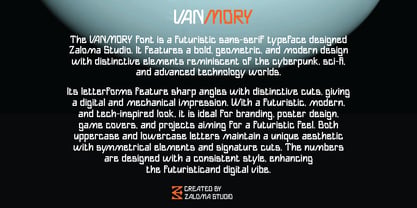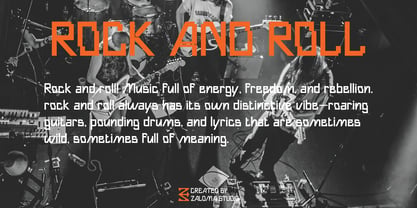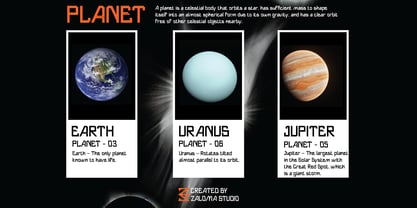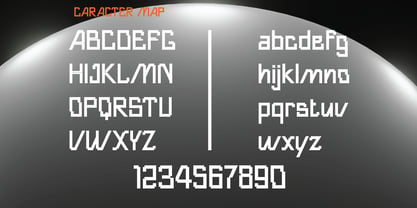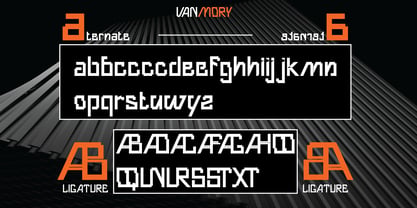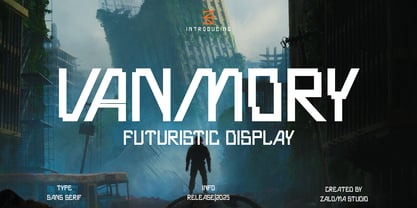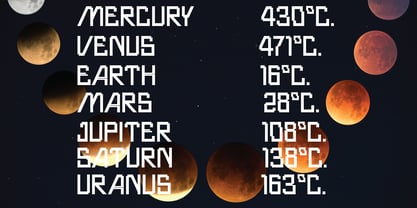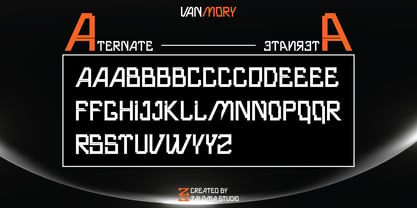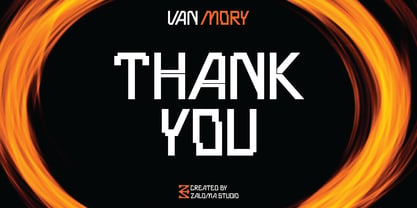
Vanmory
por Zaloma Studio
A família de fontes Vanmory foi desenhada por Mahyudi e publicada pela Zaloma Studio. Vanmory contém 1 estilos. Saiba mais sobre esta família
Vanmory is a futuristic sans-serif display font with a bold, geometric, and high-tech aesthetic. Its sharp angles and unique letter cuts, like the "A" without a crossbar, give it a cyberpunk and sci-fi feel. Ideal for game titles, tech branding, and futuristic designs, it exudes strength, modernity, and a digital edge.
Designers: Mahyudi Mahyudi
Fundição atual: Zaloma Studio